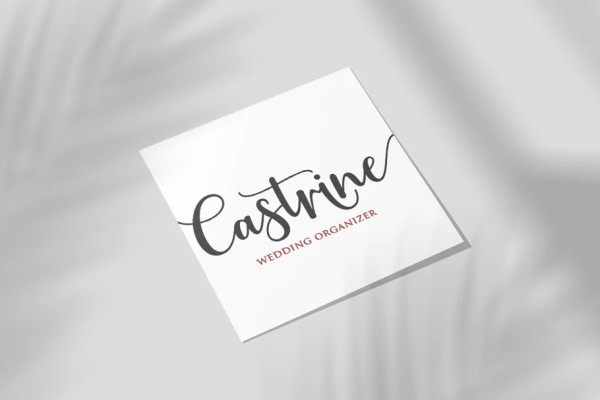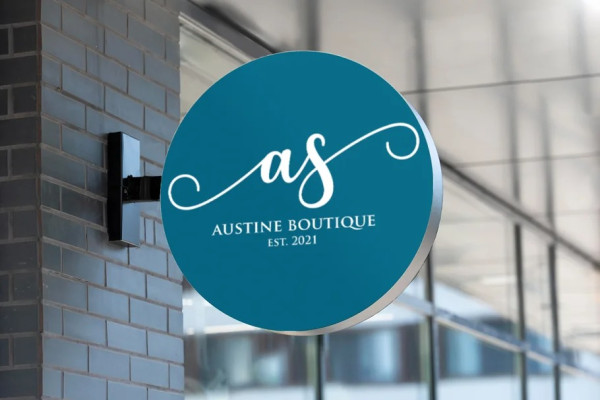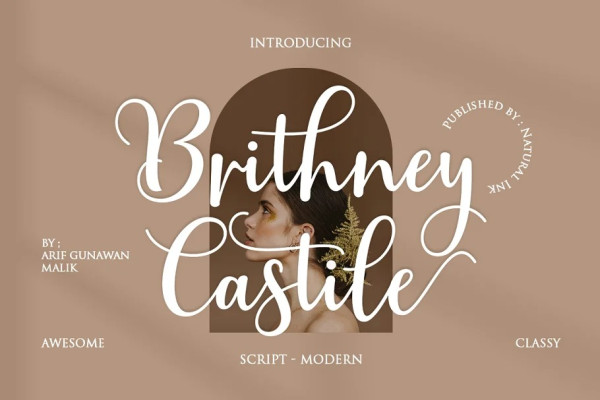
Brithney Castile Font
Brithney Castile Font is a modern calligraphy design, including Regular. This font is casual and beautiful with swash. Can be used for various purposes. such as logos, product packaging, wedding invitations, branding, headlines, signage, labels, signatures, book covers, posters, quotes, and more.